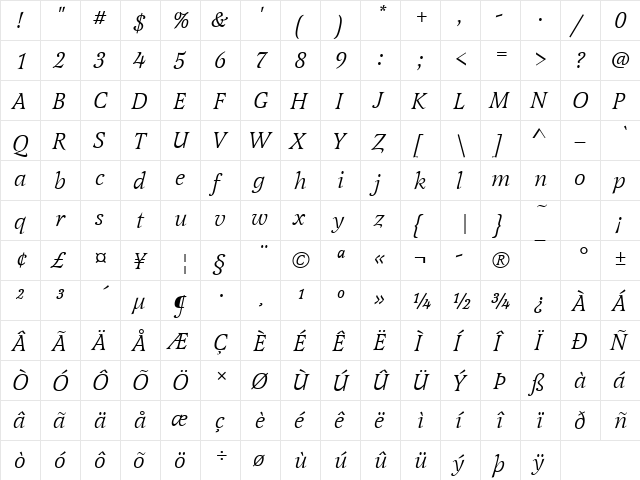
Latienne Becker Italic
Design Context for Latienne Becker Typeface
Latienne Becker takes a measured approach to typography — its balanced proportions and neutral character make it a reliable workhorse for both digital and print work. The slanted form adds forward momentum and visual energy.
Pro Tip: Try Latienne Becker for annotation and caption copy alongside an upright companion — the contrast in angle creates a dynamic but ordered typographic system.